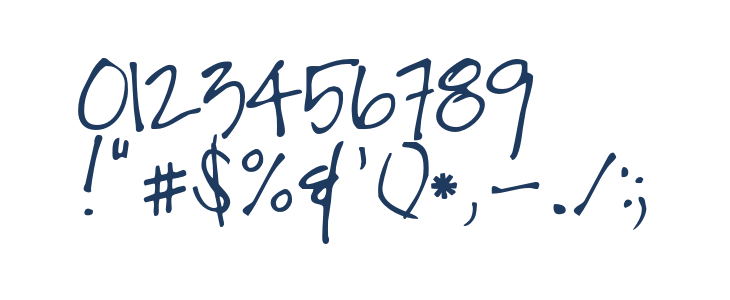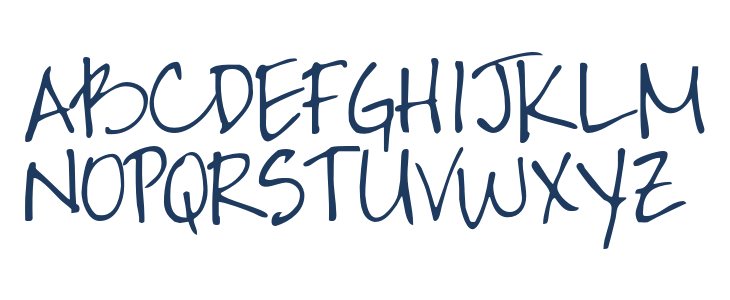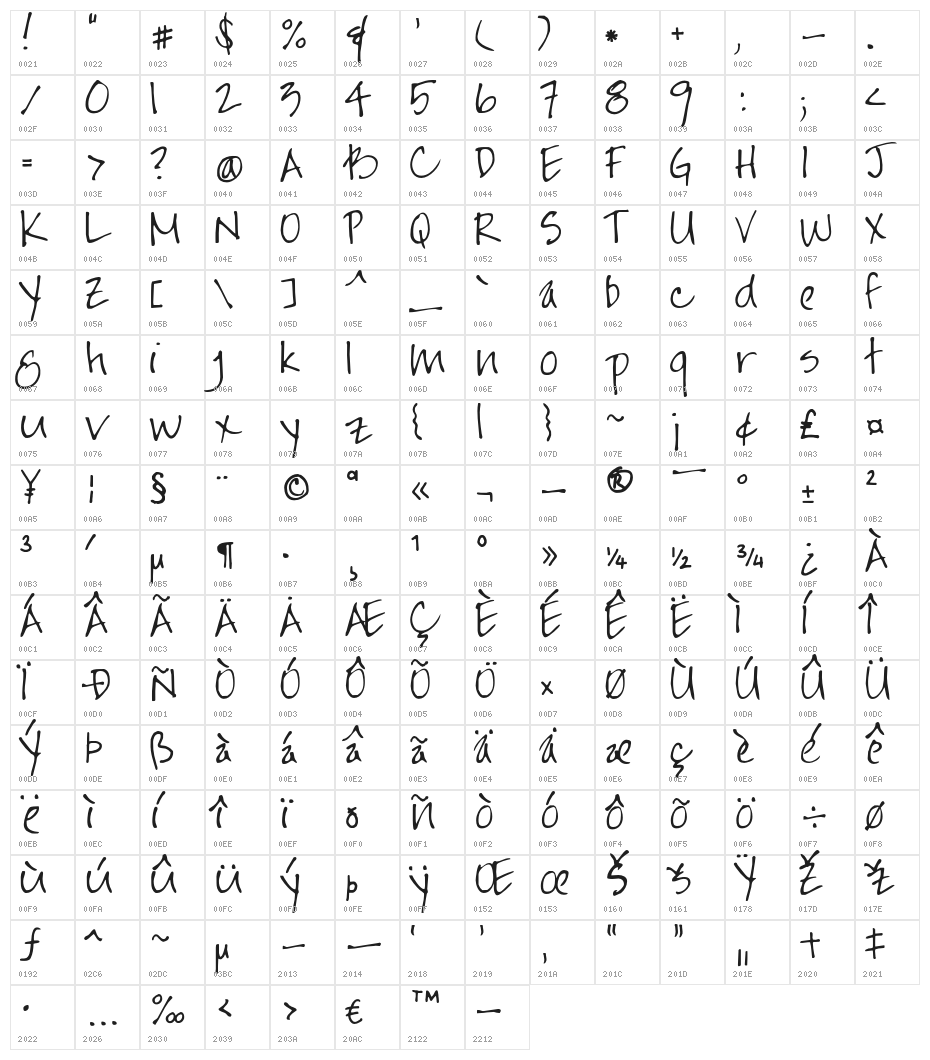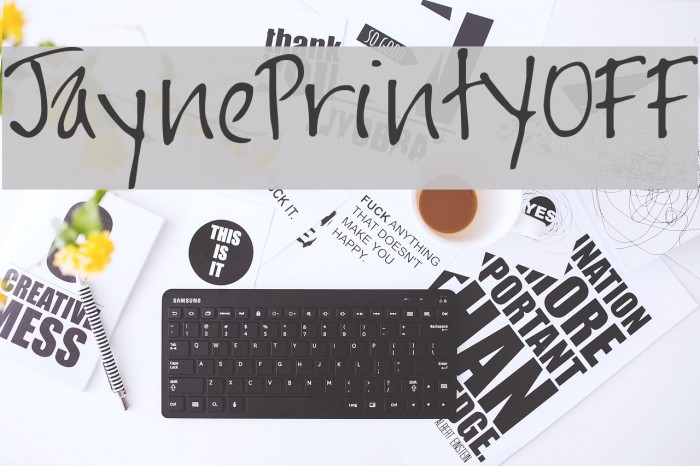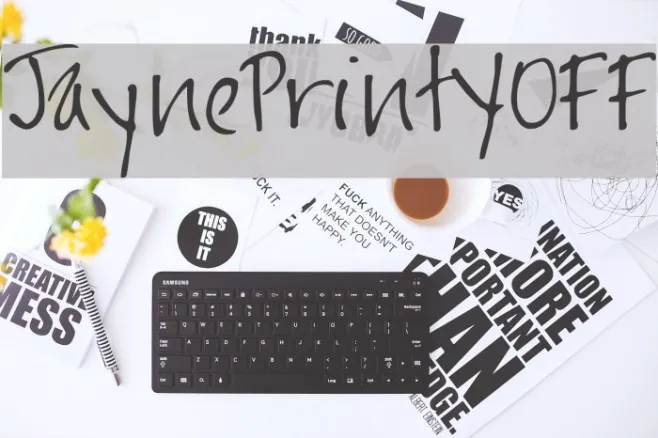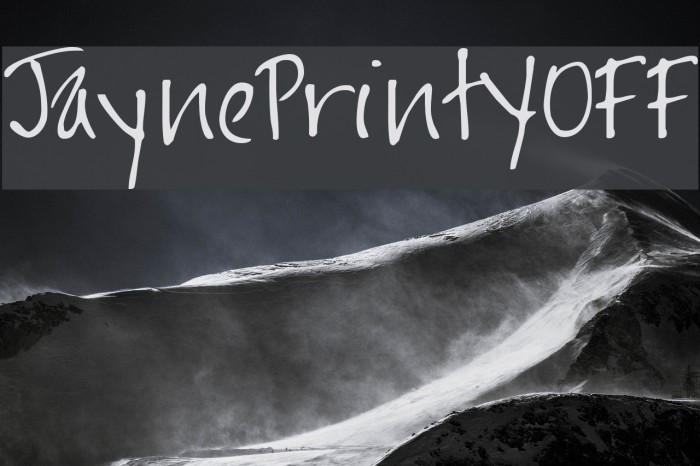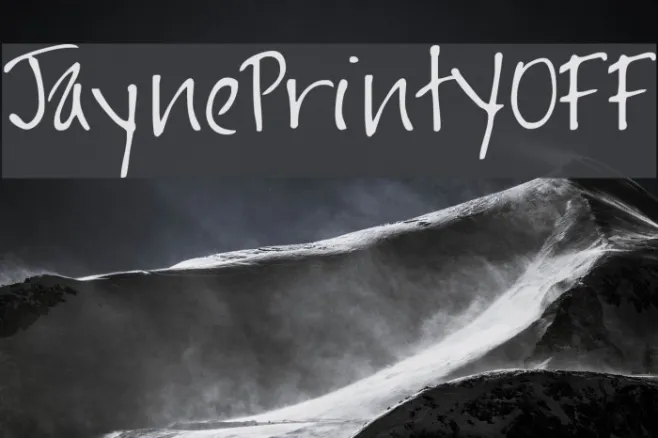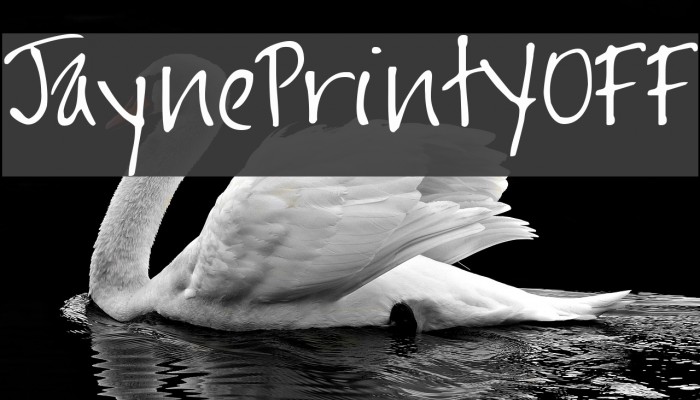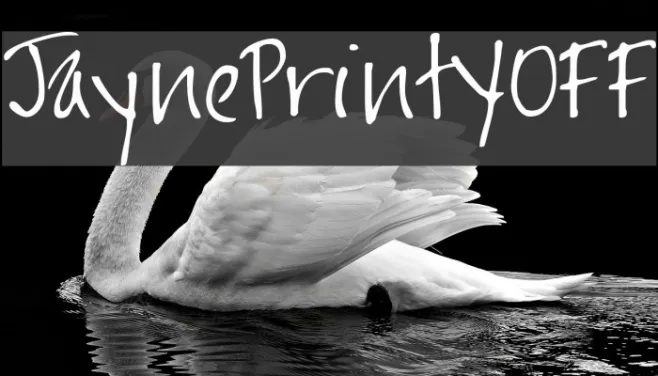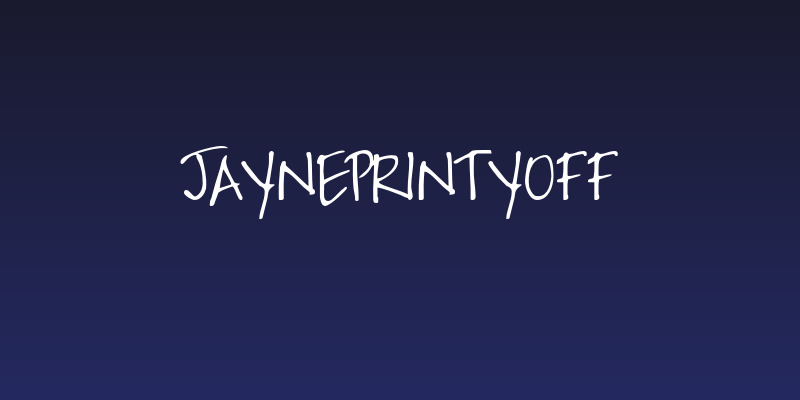
JaynePrintYOFF Font
JaynePrintYOFF Description
This font exudes a playful and casual handwritten style, characterized by its fluid and dynamic strokes. The letters have a natural, organic flow, with varying stroke widths that add a sense of movement and energy. The uppercase letters are bold and confident, while the lowercase letters maintain a friendly and approachable demeanor. The numerals are consistent with the overall style, featuring the same lively and informal characteristics. Special characters are creatively integrated, maintaining the font's whimsical and expressive nature. This font is perfect for projects that require a personal touch, conveying warmth and creativity.
| Proposed Projects | Ideal for greeting cards, invitations, personal branding, and creative projects that require a personal touch. |